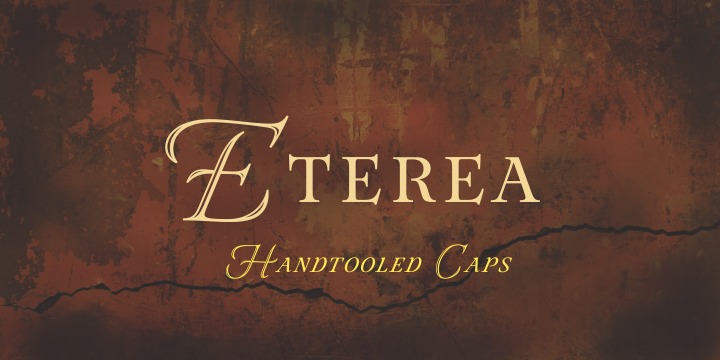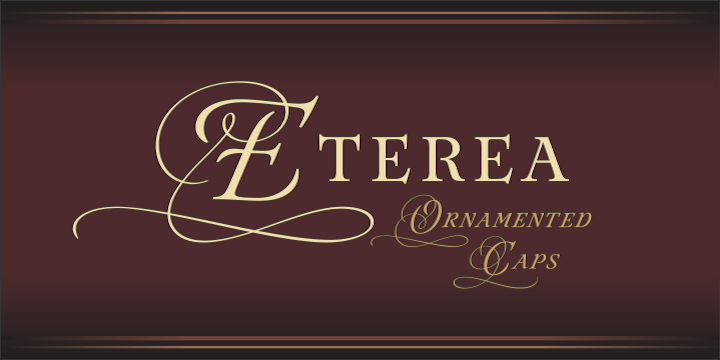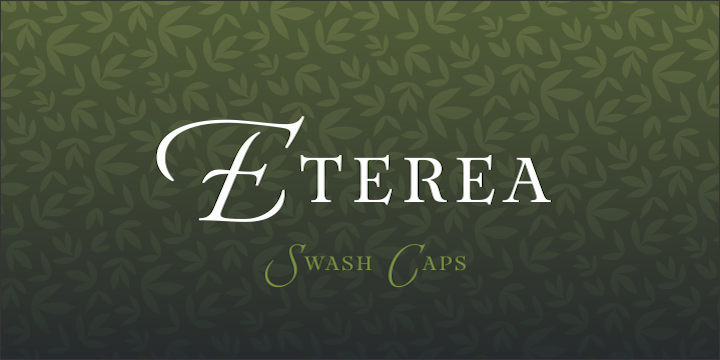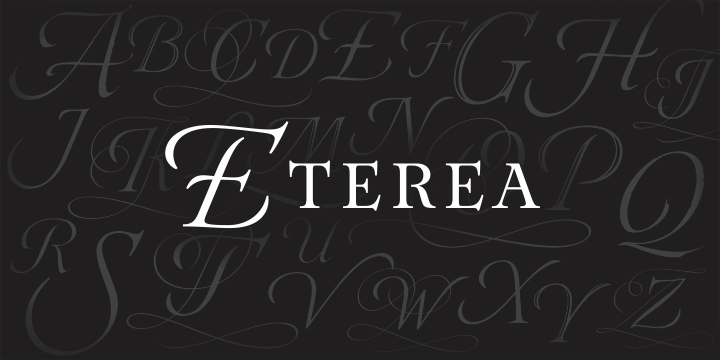
Eterea Family Font: Elevate Your Designs with Elegance and Creativity
In the world of typography, a font can make or break a design. For creative professionals, finding the perfect typeface that exudes elegance, sophistication, and creativity is a constant quest. This is where the Eterea Family Font comes in – a stunning, versatile typeface family that is sure to elevate your designs to new heights. In this article, we’ll explore the features, benefits, and uses of the Eterea Family Font, and why it’s a must-have for designers and crafters alike.
What is Eterea Family Font?
Eterea is a beautiful, elegant typeface family that boasts stunning swashes, making it perfect for a wide range of design applications. From headings and logos to posters, invitations, book covers, and more, Eterea’s versatility knows no bounds. Its sophisticated and refined aesthetic makes it an ideal choice for designers who want to add a touch of luxury and creativity to their work.
Key Features of Eterea Family Font
- Beautiful Swashes: Eterea’s swashes are its crowning glory. These elegant flourishes add a touch of sophistication and elegance to any design, making it perfect for logos, headings, and titles.
- Versatility: Eterea can be used for a wide range of design applications, from print to digital media. Whether you’re designing a poster, invitation, or book cover, Eterea is up to the task.
- Elegant and Refined: Eterea’s classic aesthetic makes it perfect for designs that require a touch of sophistication and luxury.
- Perfect for Creative Professionals: Eterea is a font that understands the needs of creative professionals. Its unique features and versatility make it an ideal choice for designers, crafters, and artists.
Uses of Eterea Family Font
Eterea’s versatility makes it suitable for a wide range of design applications. Here are some of the ways you can use Eterea Family Font:
- Headings and Logos: Eterea’s elegant swashes make it perfect for headings and logos. Add a touch of sophistication to your brand’s identity with Eterea.
- Posters and Flyers: Create stunning posters and flyers with Eterea’s bold and elegant typography.
- Invitations and Wedding Stationery: Eterea’s classic aesthetic makes it perfect for invitations, wedding stationery, and other formal events.
- Book Covers and Magazine Titles: Eterea’s elegant typography is ideal for book covers and magazine titles. Add a touch of sophistication to your publication with Eterea.
Why Choose Eterea Family Font?
With so many fonts available, why choose Eterea Family Font? Here are a few reasons why Eterea stands out from the crowd:
- Unique and Creative: Eterea’s swashes and elegant aesthetic make it a unique and creative font that will set your designs apart.
- High-Quality Typography: Eterea’s typography is of the highest quality, making it perfect for professional designs.
In conclusion, the Eterea Family Font is a stunning, versatile typeface family that is perfect for creative professionals. Its elegant swashes, refined aesthetic, and versatility make it suitable for a wide range of design applications. Whether you’re a designer, crafter, or artist, Eterea is a must-have font that will elevate your designs to new heights. So why wait? Get your hands on Eterea Family Font today and unleash your creativity!